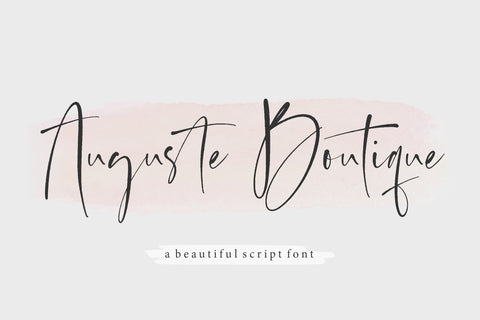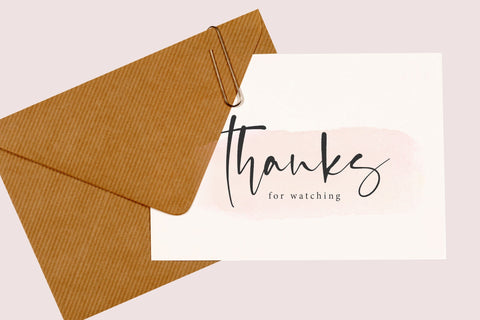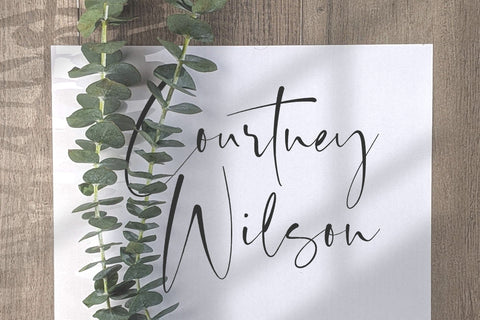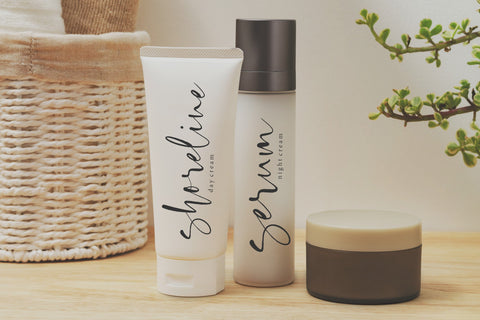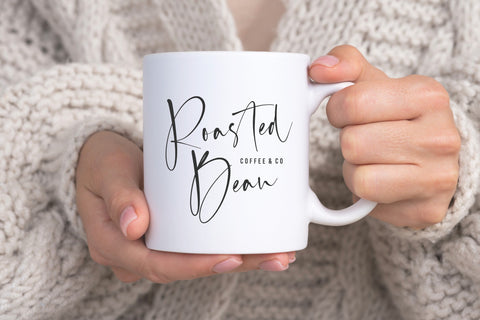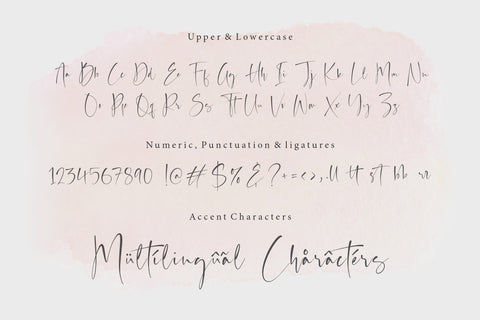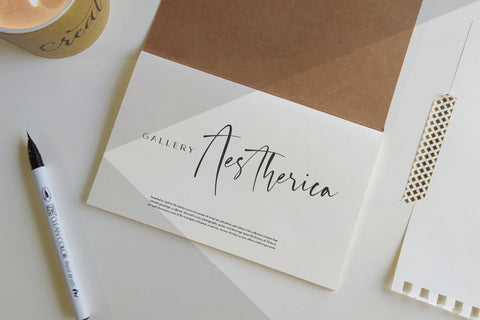
Auguste Boutique Modern Calligraphy Font
Proudly Present, Auguste Boutique Font.
Auguste Boutique is a Modern Calligraphy Font.
Auguste Boutique is a dazzling script font. Whatever the topic, this font will be a wonderful asset to your font library, as it has the potential to enhance any creation.